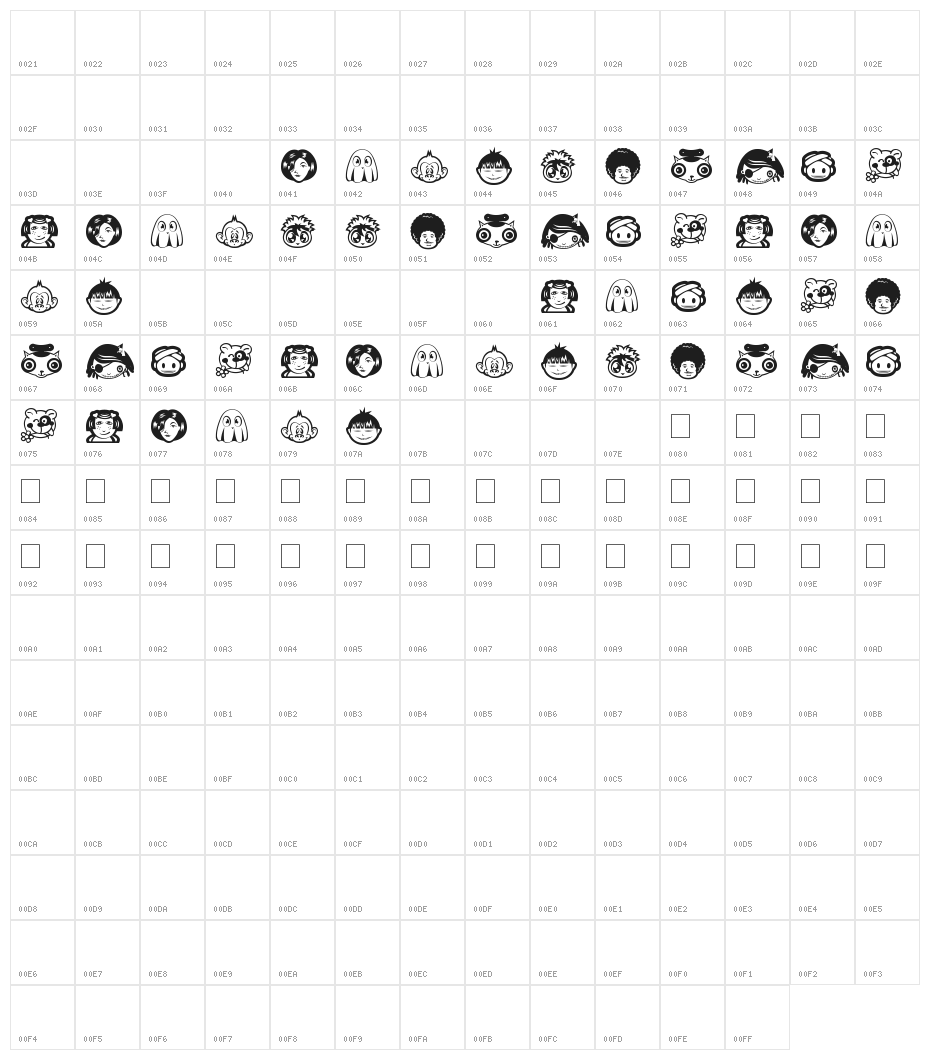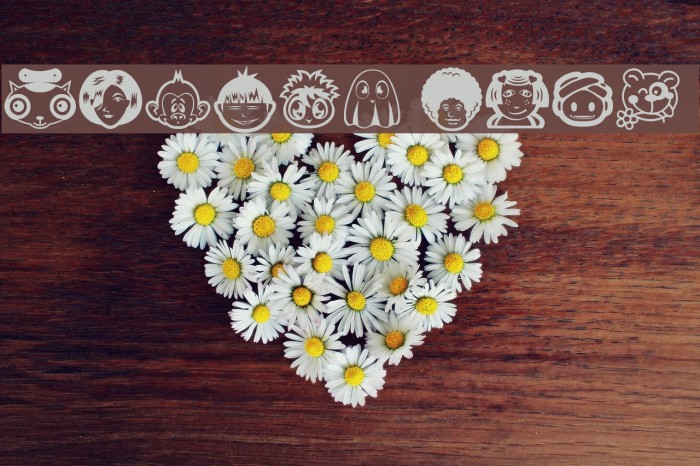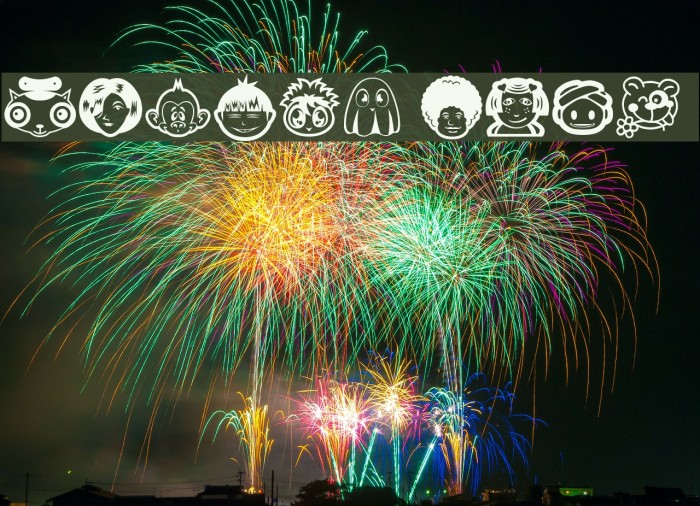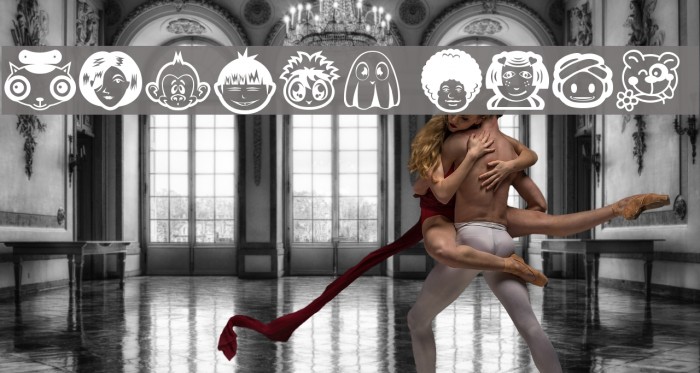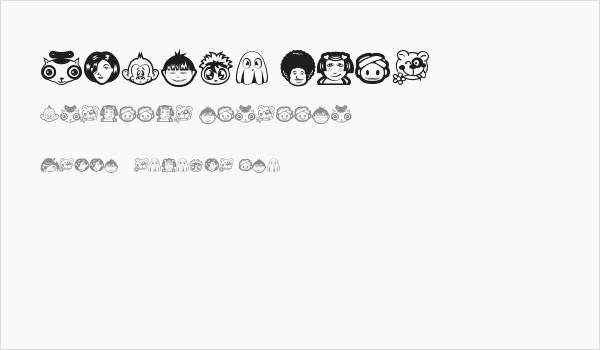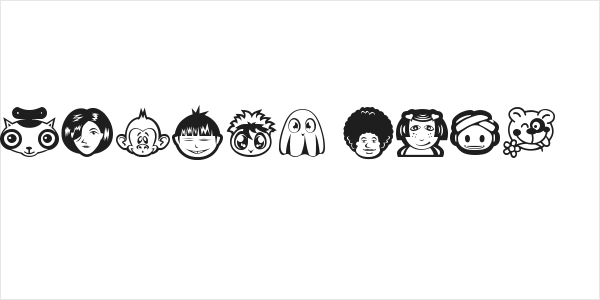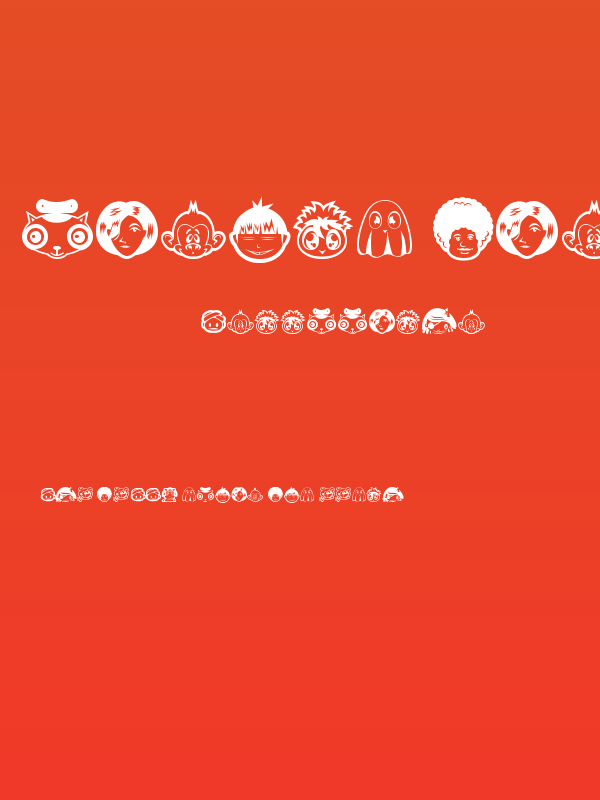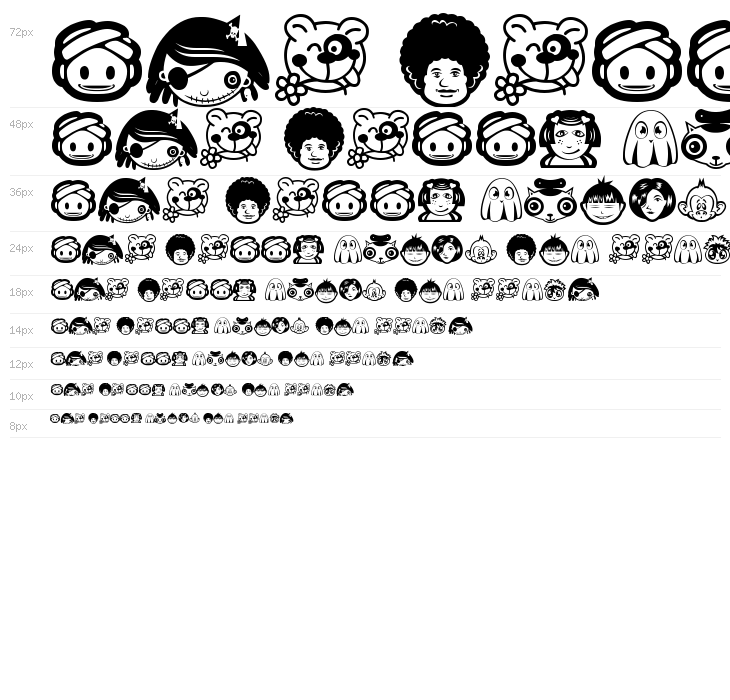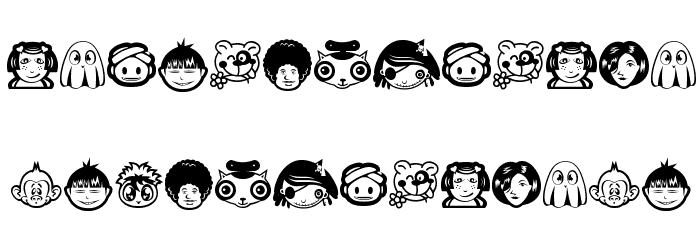
RANDOM Face 1 Font
RANDOM Face 1 Description
A playful and whimsical decorative font composed entirely of cartoon-style faces and character icons, each glyph representing a unique illustrated head or face with bold outlines and expressive features.
| Overall Style | Playful, Whimsical, Decorative |
| Use Case | Logos, Posters, Headlines, Themed graphics |
| Proposed Projects | ChildrenΓ’β¬β’s books, party invitations, playful branding, educational materials, comics, greeting cards. |